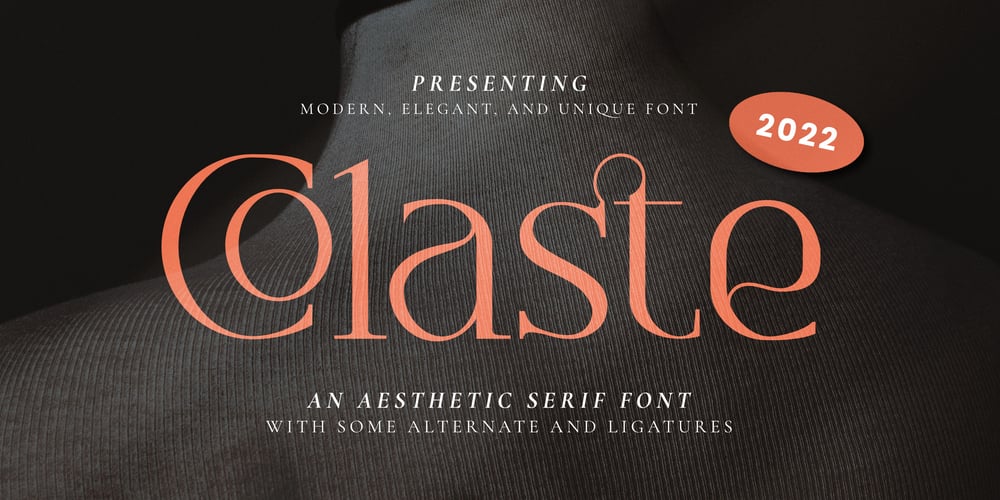
Colaste
Colaste font
Colaste Font Family was designed by Fitriyawan, Satia Hayu Prabowo and published by Runsell Type. Colaste contains 1 styles and family package options. Colaste font is perfect for many of your projects like logos & branding, photography, invitations, watermarks, advertisements, product designs, stationery, wedding designs, labels, product packaging, special events and much more.